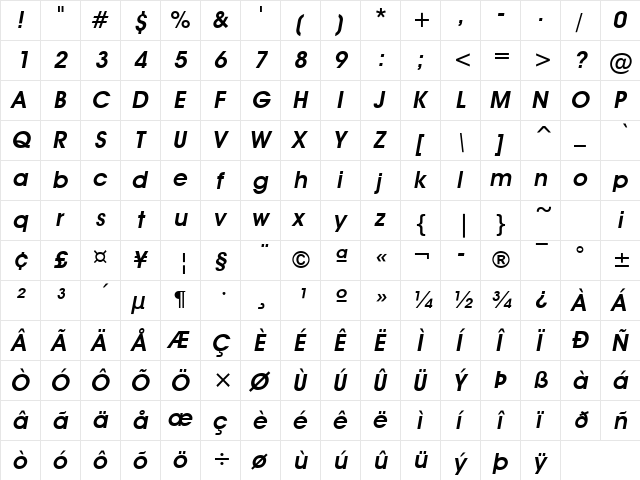
Advantage Bold Italic
Design Context for Advantage Typeface
Advantage offers clean, dependable letterforms without strong stylistic allegiance, making it a practical choice for designers who need flexibility. The dynamic lean of this cut emphasises speed and emphasis in any layout. The heavy weight commands attention and anchors typographic hierarchies.